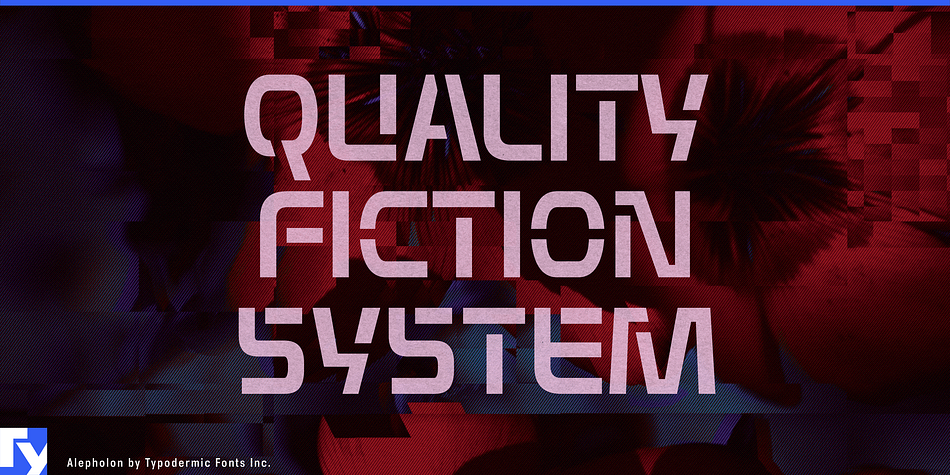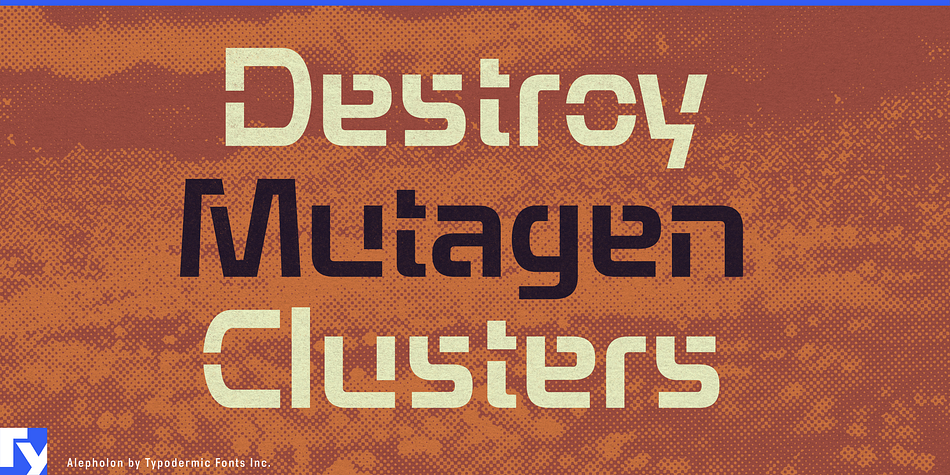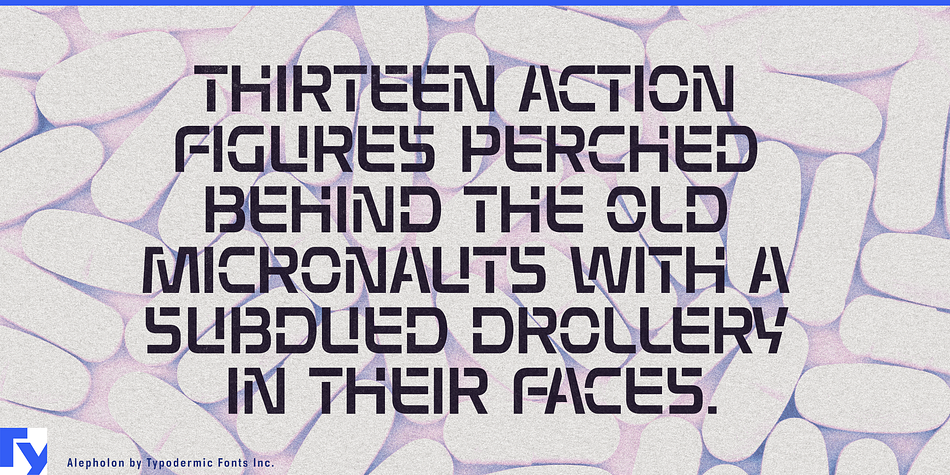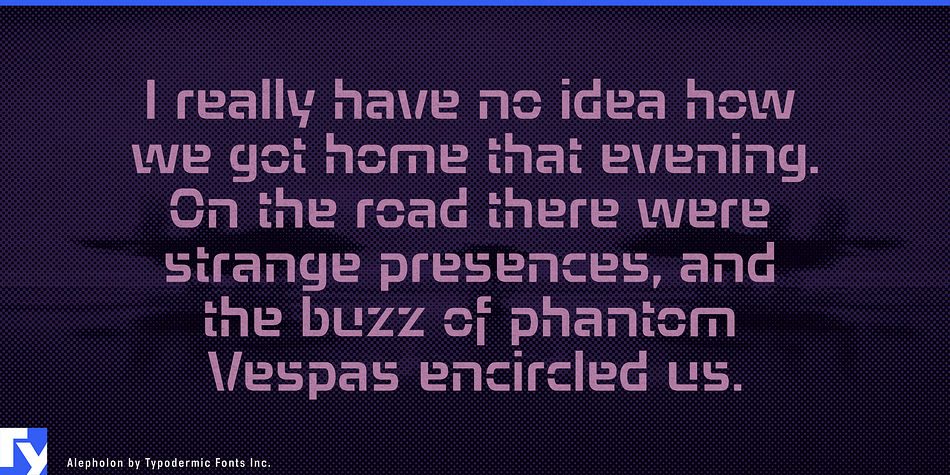
Alepholon is a stencil font published by Typodermic Fonts Inc.
Alepholon is a technological typeface with nontraditional, industrial curves. Stark, and mechanized, Alepholon is well suited for use on lunar road signs.